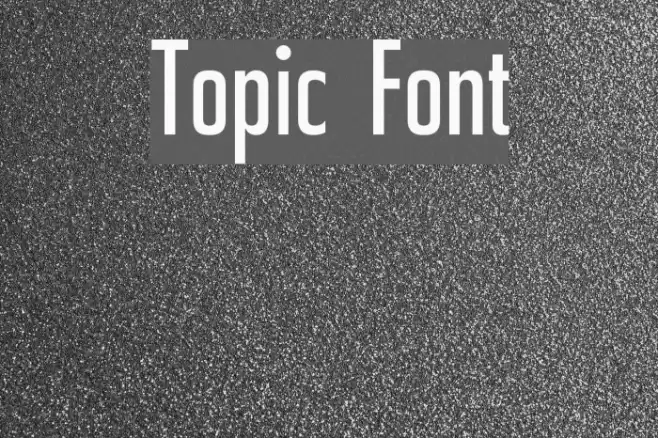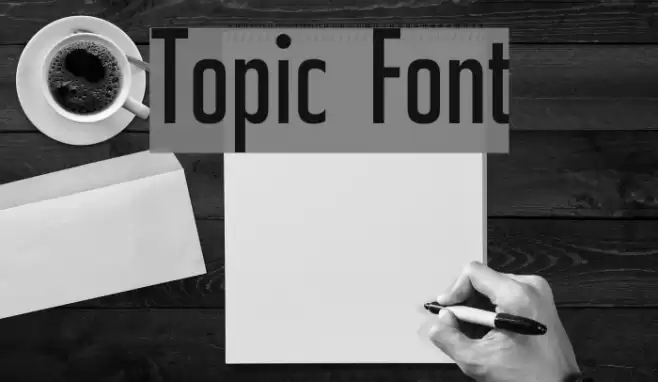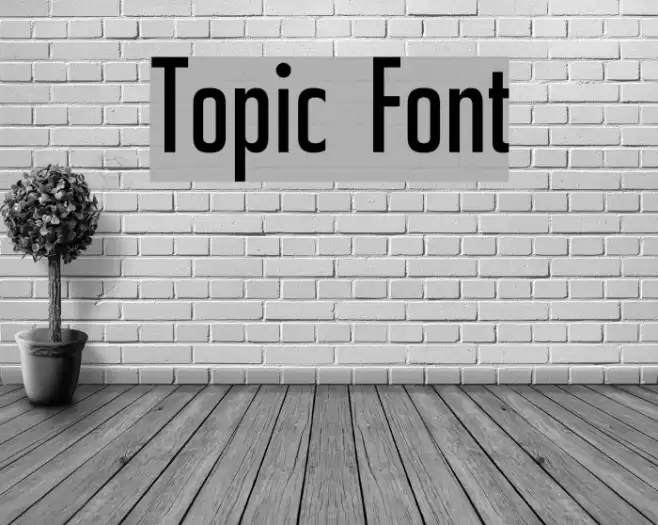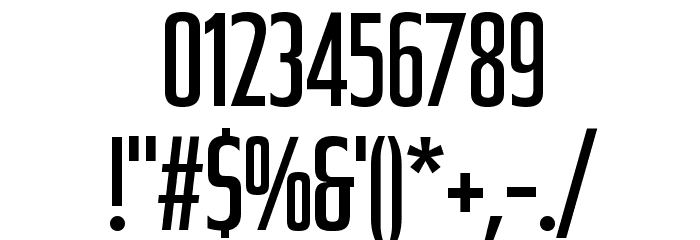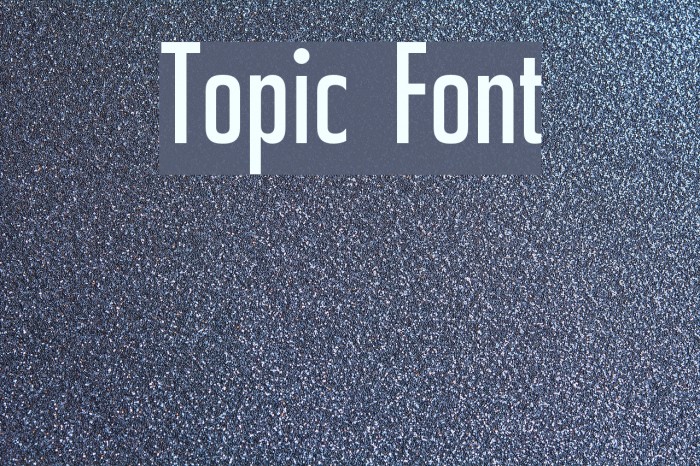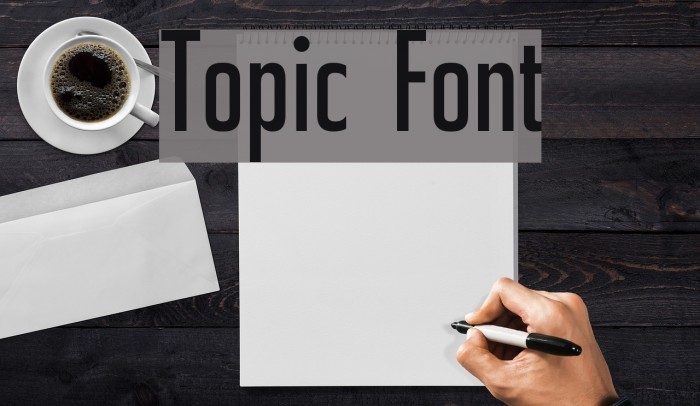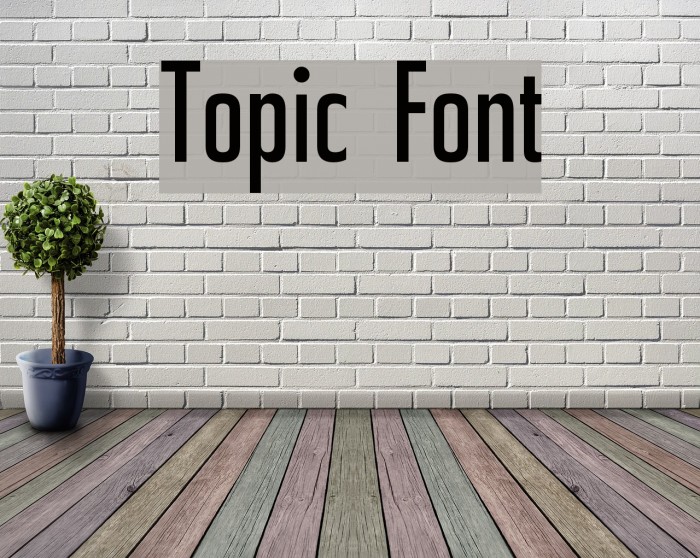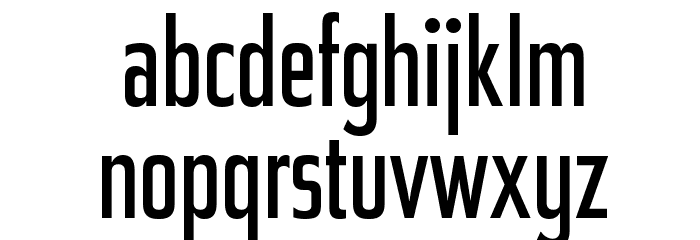
Topic Font
Topic Description
This font features a modern and sleek design with tall, narrow characters that convey a sense of elegance and sophistication. The uppercase letters are bold and commanding, while the lowercase letters maintain a consistent height and width, ensuring readability. The numerals are clear and distinct, making them suitable for various applications. Special characters are well-defined, adding versatility to the font's usage. The overall design is clean and minimalistic, making it ideal for contemporary projects that require a touch of class.
A modern, sleek font with tall, narrow characters and a clean design from Uncategorized fonts.
- Proposed Projects: Ideal for branding, advertising, and editorial design projects that require a modern and sophisticated look.
- Use Case: Headlines, Logos, Branding